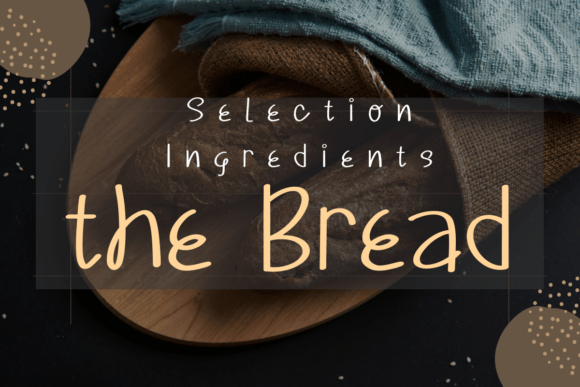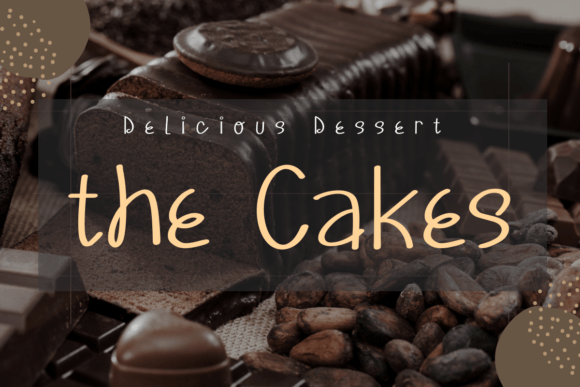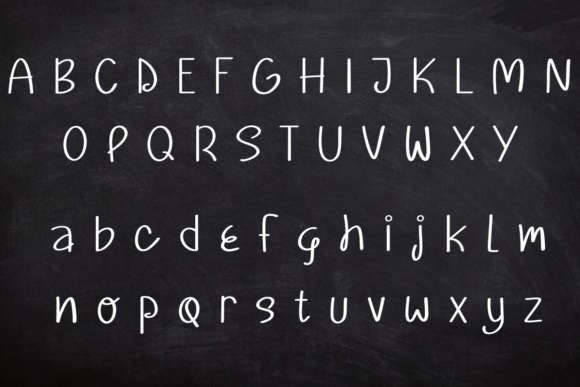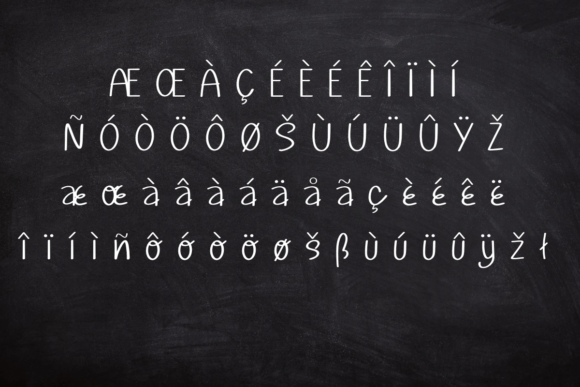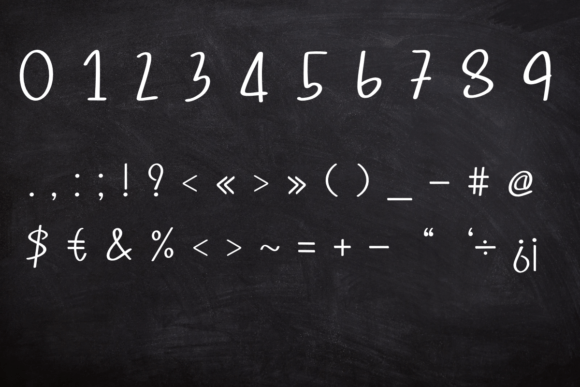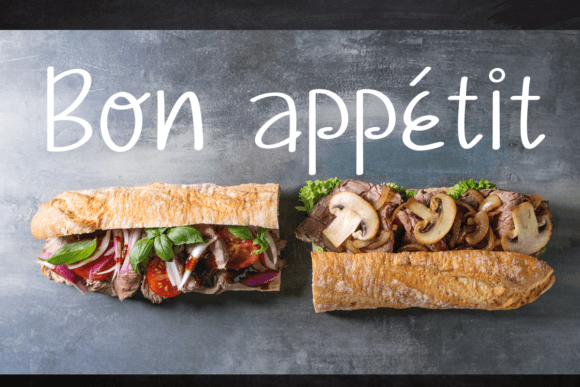
Discover the Perfect Recipe for Design Success: Baguette Font
Do you remember that moment when you stumbled upon the perfect font for a project, and everything just clicked? For many designers, this moment is like biting into a freshly baked baguette – warm, inviting, and full of possibilities. This is exactly what the Baguette Font offers – a delicious blend of playfulness and sophistication that will elevate your designs to the next level.
As a friendly, handwritten sans serif font, Baguette is the perfect companion for your creative endeavors. Whether you’re crafting invitations for a wedding, designing party decorations, or creating a social media post, this font is sure to bring a smile to your audience’s faces. Its timeless style and versatility make it an invaluable asset for designers who want to add a personal touch to their projects.
Key Features of Baguette Font
- Resolution: The font is designed to be resolution-independent, ensuring that it looks sharp and clear at any size or resolution, from low-resolution screens to high-resolution print materials.
- Unique Characteristics: Baguette Font features a distinctive, hand-drawn look with subtle imperfections and nuances that give it a personal, human touch.
- Weight and Style: Baguette Font is available in multiple weights and styles, including Light, Regular, Medium, Bold, and Italic, allowing designers to create a range of visual effects and moods.
Baguette Font Review
Overall, I think Baguette Font is a charming and elegant font that’s perfect for creative projects.
- Unique aesthetic: Baguette Font has a distinctive look that’s reminiscent of French cuisine, which is perfect for projects that need a touch of sophistication.
- Legibility: The font is well-designed and easy to read, even at smaller sizes.
- Good for headings: Baguette Font makes for great headings and titles, adding a touch of elegance to your design.
- Limited character set: Baguette Font has a limited character set, which may not be suitable for projects that require a wide range of characters, such as complex texts or languages.
- Not suitable for body text: While Baguette Font is great for headings, it’s not the best choice for body text, as it can be a bit too ornate and difficult to read at smaller sizes.
Overall, I’d give Baguette Font 4 out of 5 stars. It’s a great choice for creative projects that need a touch of elegance, but it may not be the best fit for projects that require a wider range of characters or more legible body text.
The Baguette Font is a great choice for creating a French-inspired aesthetic, making it perfect for:
- Café and bakery branding
- French-inspired art and design
Alternatives to Baguette Font for Designers
Lato is a modern sans-serif font designed by Łukasz Dziedzic. It is a great alternative to Baguette Font for designers who want a clean and sophisticated look. Lato is highly legible and works well for both body text and headings.
Comparison: Lato is more geometric and clean compared to Baguette Font, which has a more decorative feel. Lato is ideal for modern and minimalist designs, while Baguette Font is better suited for more elegant and luxurious designs.
Montserrat is a sans-serif font designed by Julieta Ulanovsky. It is a great choice for designers who want a font that is both modern and versatile. Montserrat is highly legible and works well for both body text and headings.
Comparison: Montserrat has a similar feel to Baguette Font in terms of its modern and elegant look. However, Montserrat is more versatile and can be used for a wider range of designs, from modern and minimalist to luxurious and elegant.